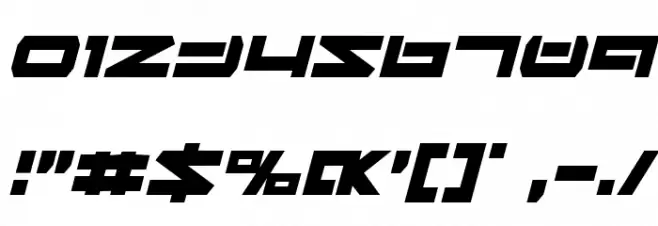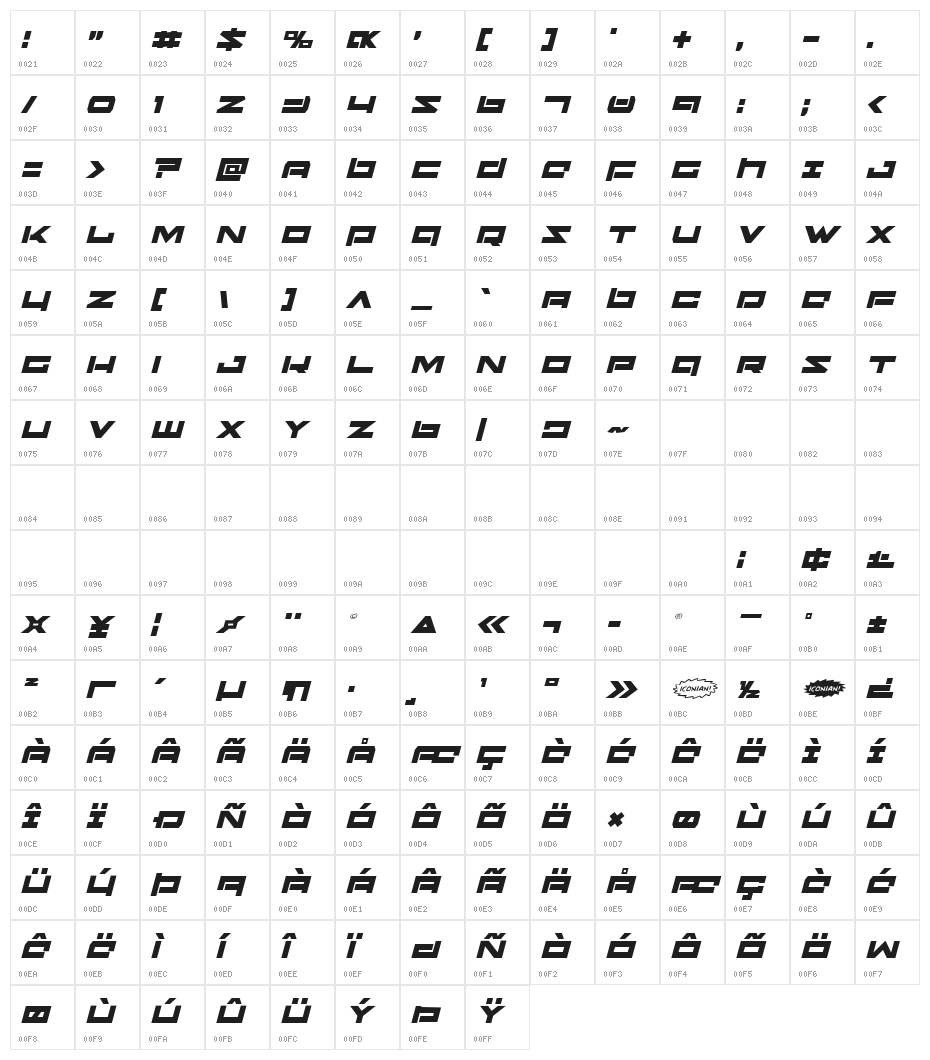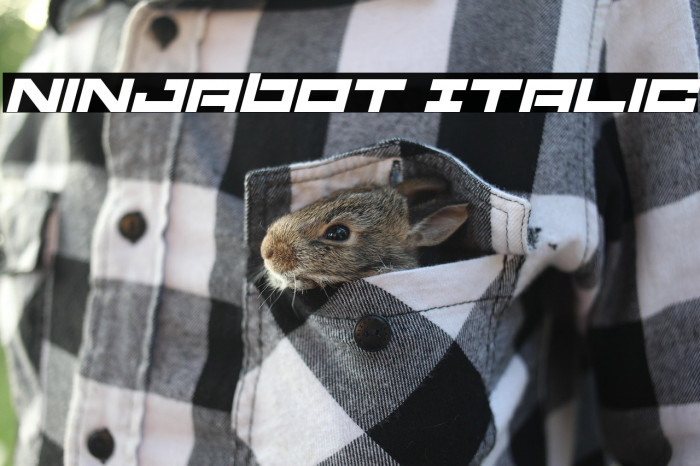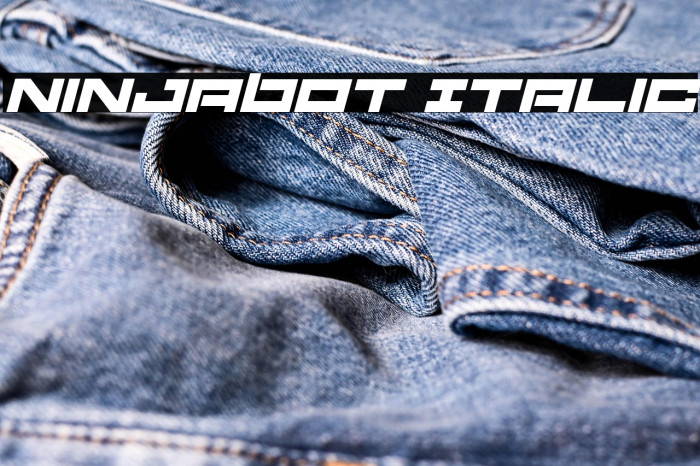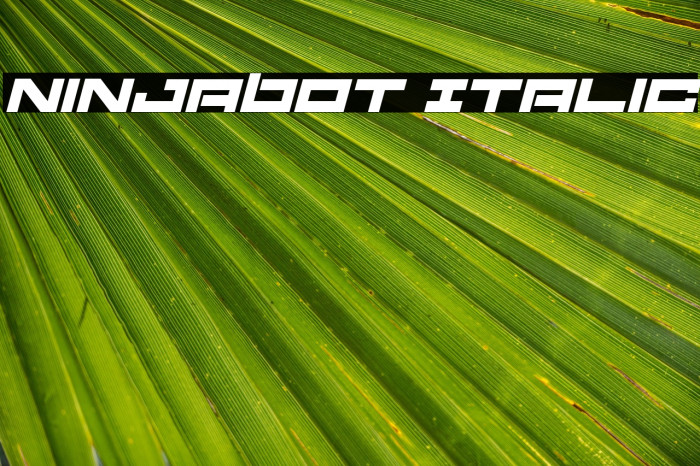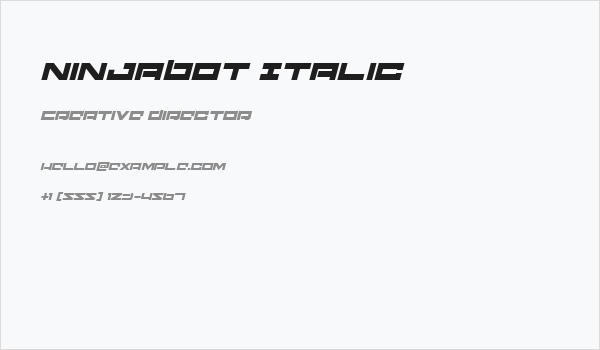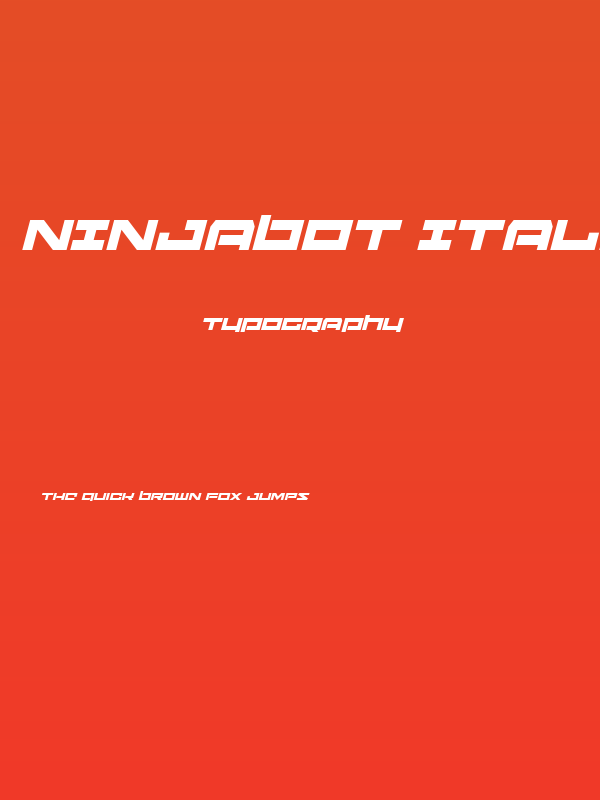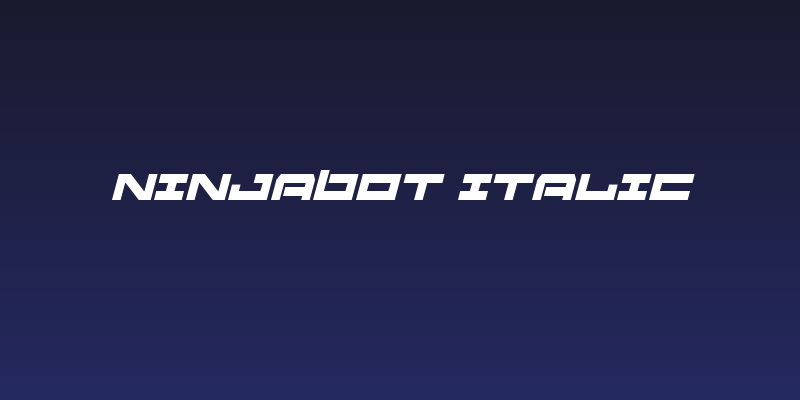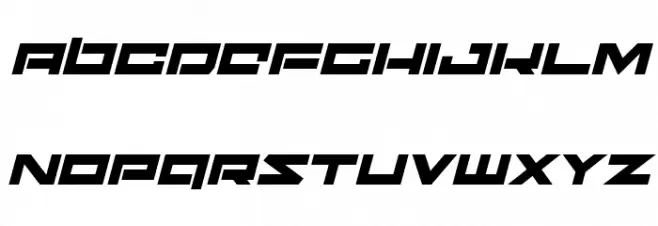
Ninjabot Italic Font
Ninjabot Italic Description
This font features a futuristic and angular design, characterized by sharp edges and a dynamic slant that gives it a sense of motion and energy. The uppercase and lowercase letters maintain a consistent geometric style, with each character displaying a unique blend of straight lines and sharp angles. The numbers and special characters follow the same design principles, ensuring a cohesive look across all elements. The font's bold and italicized nature enhances its striking appearance, making it ideal for projects that require a modern and edgy aesthetic.
| Use Case | Headlines, Logos |
| Proposed Projects | Ideal for sci-fi themed designs, video game graphics, tech branding, and modern posters. |